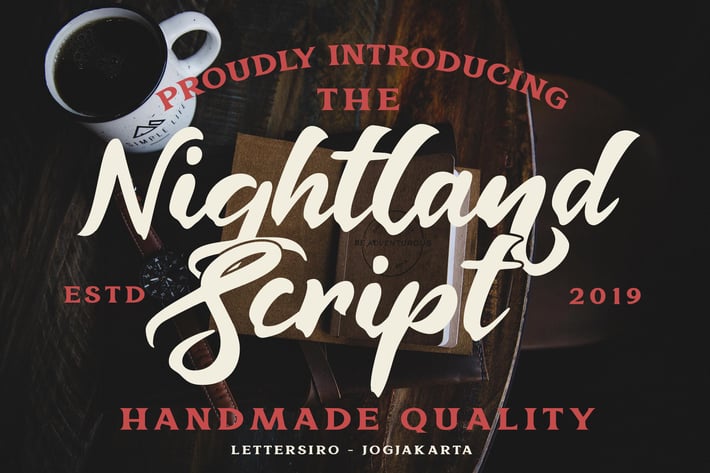
Nightland Font
Nighland is handmade bold script that is beautiful for branding, logo, poster, magazine, art, and many other design project.
Nightland comes with two font ; Regular and Outline. Nightland is well for both modern and vintage design.
Multilingual include basic latin language like English, Spanish, Portguese, German, Italian, French, and Polish
Opentype Feature include Stylistic alternate and Ligature